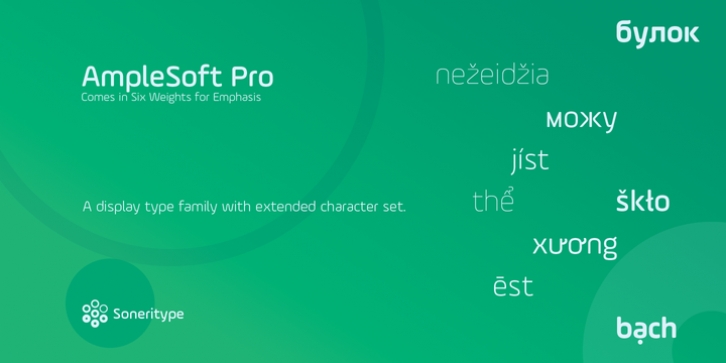
AmpleSoft Pro is an extended version of AmpleSoft type family. AmpleSoft Pro Includes Extended Languages Character Set for following:
Azerbaijan, Belarus, Bulgaria, Czech Republic, Kazakhstan, Latvia, Lithuania, Polish, Romania, Russia, Slovakia, Ukraine, Uzbekistan, Vietnam.
It is designed to be a little eye-catching yet legible. It has clear and distinguishable letterforms, which helps to elaborate and emphasis the message. It is graphically strong and command viewer’s attention. The overall appearance of type is suitable in setting it as heading, title, headline, etc.
The type family consists of six weights: Thin, ExLight, Light, Regular, Medium and Bold.